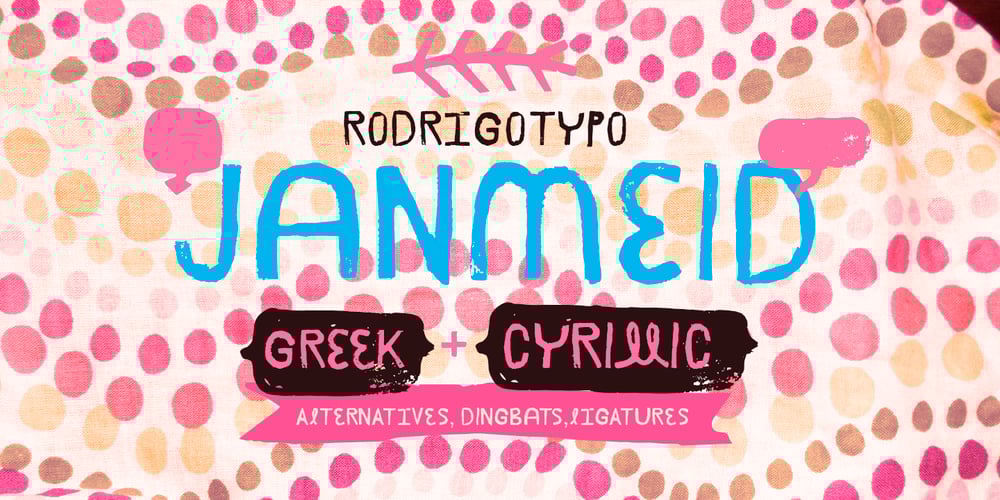
Janmeid Font Family was designed by Rodrigo Araya Salas and published by RodrigoTypo. Janmeid contains 4 styles and family package options. “Janmeid”, typography completely handmade, with all its accents and Cyrillic alphabets and Greek, has alternatives and various ligatures, also containing 3 dingbat set, the first is Xtreme, which is for powers titles horror, action, or Xtremes sports, the second is “tales” for stories powers or children’s titles, and the third “Line” Help letters to seem “Swash” something much more decorative, the idea is to make a sweet, crazy fun typography, restless (as the author xD).